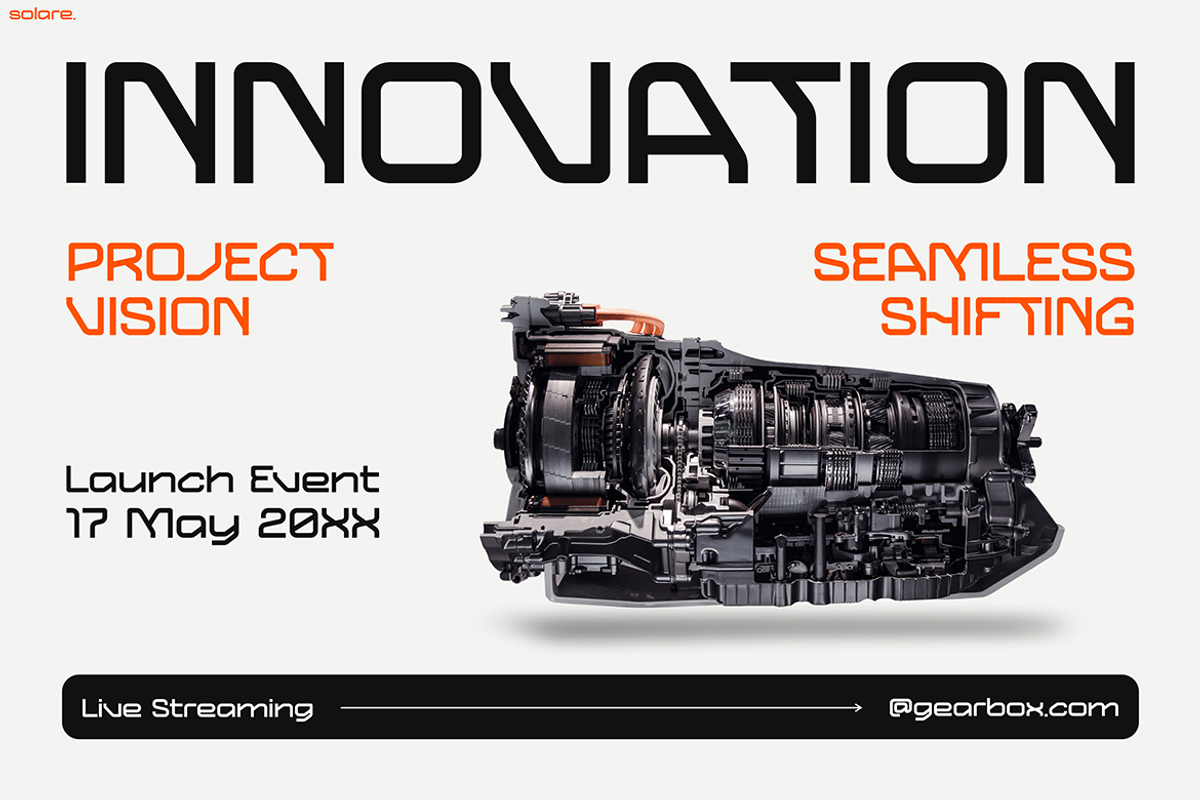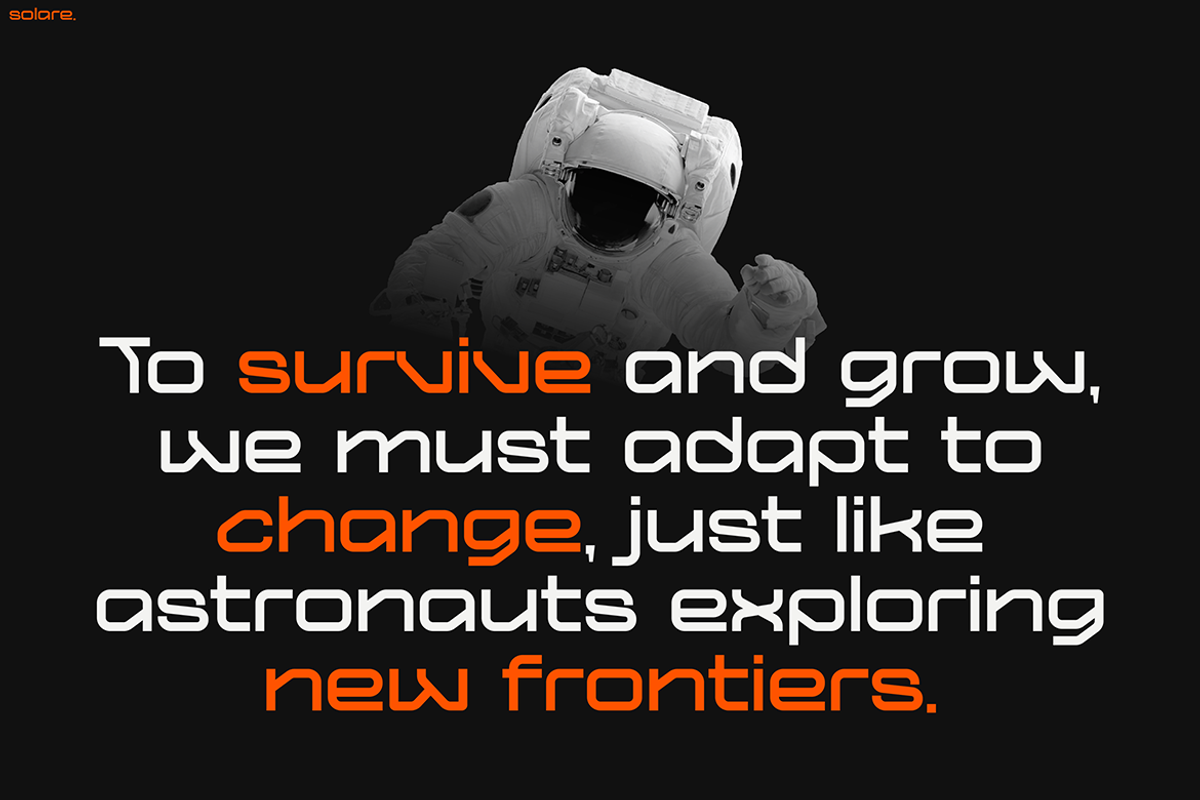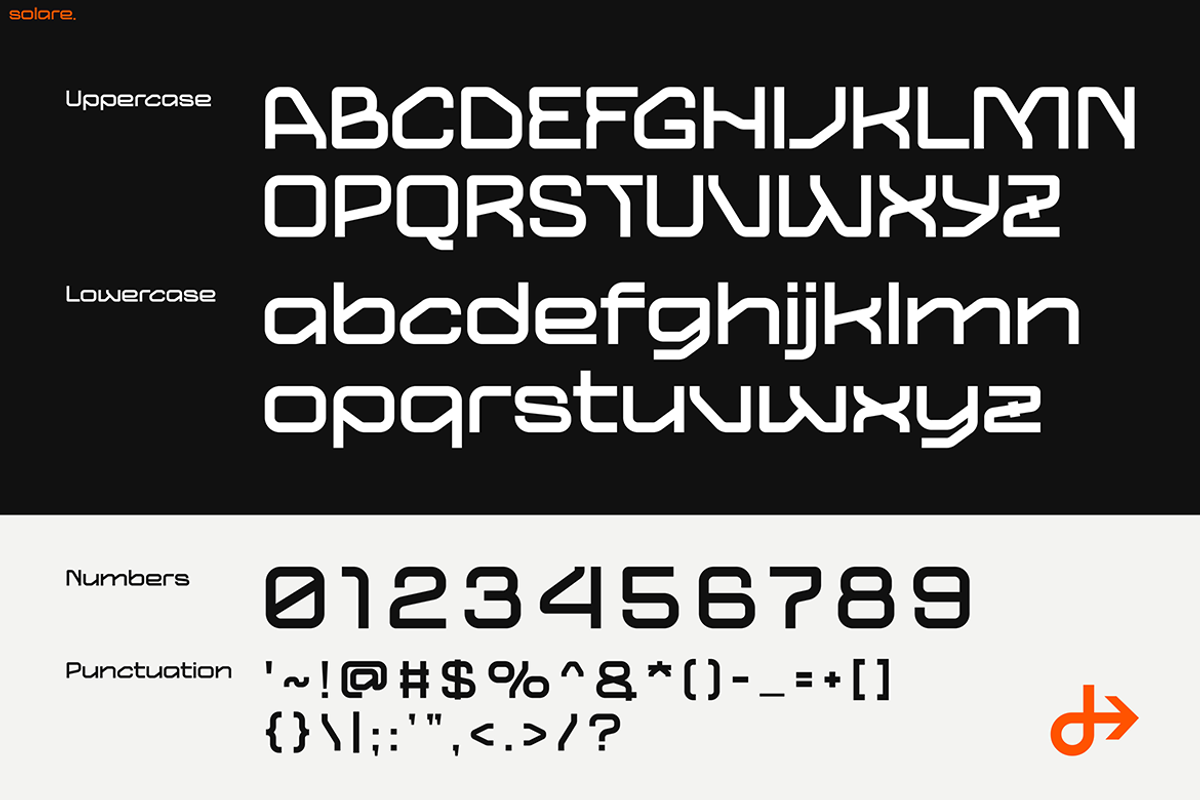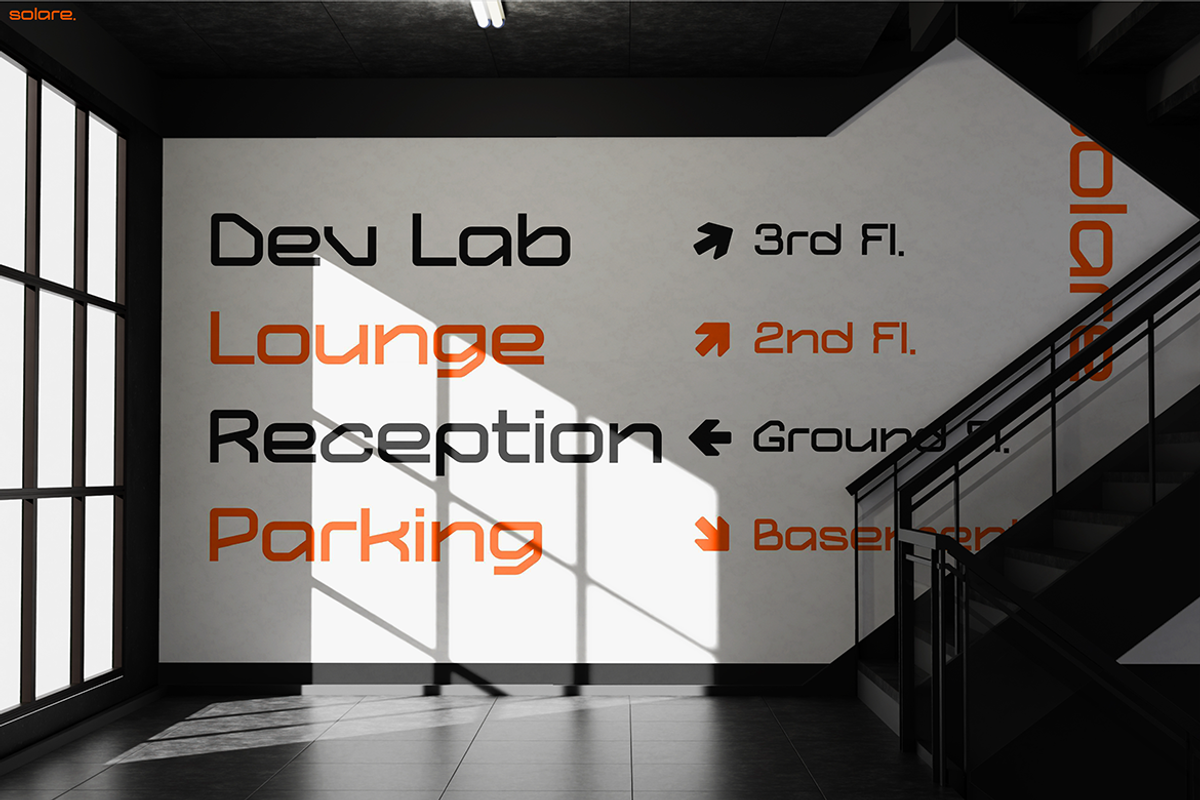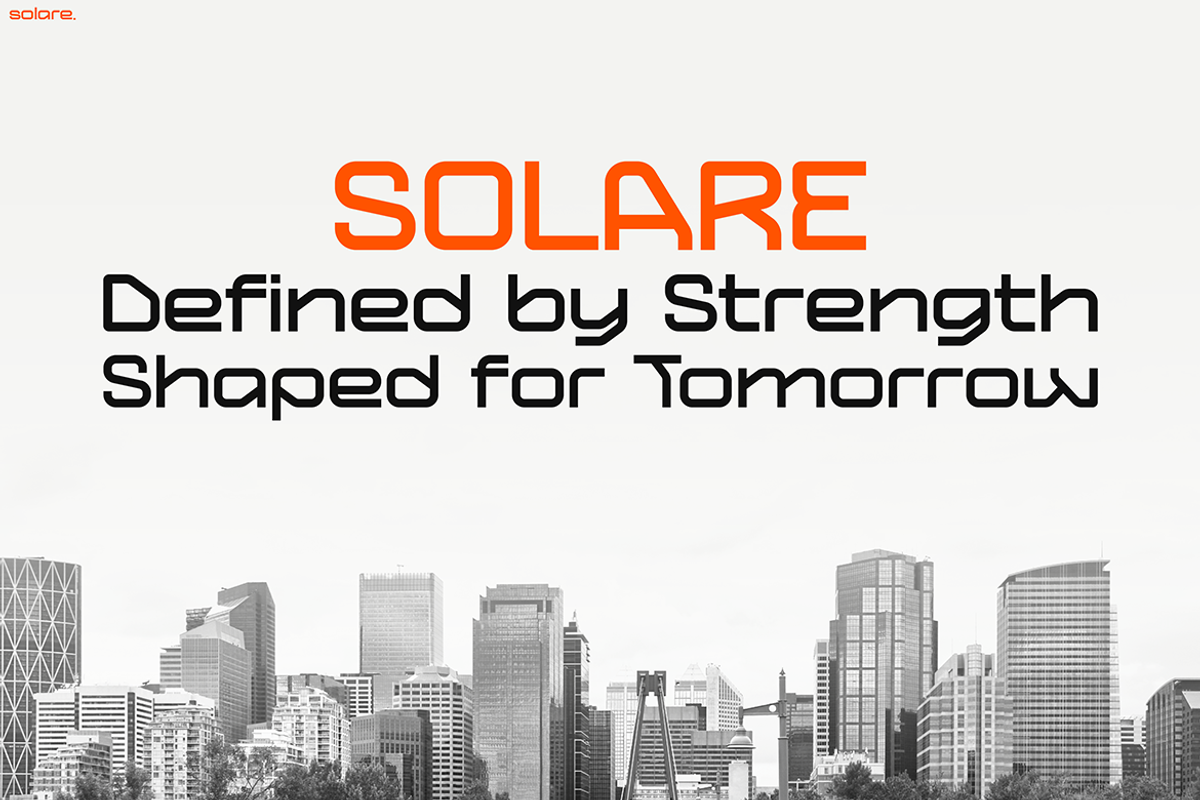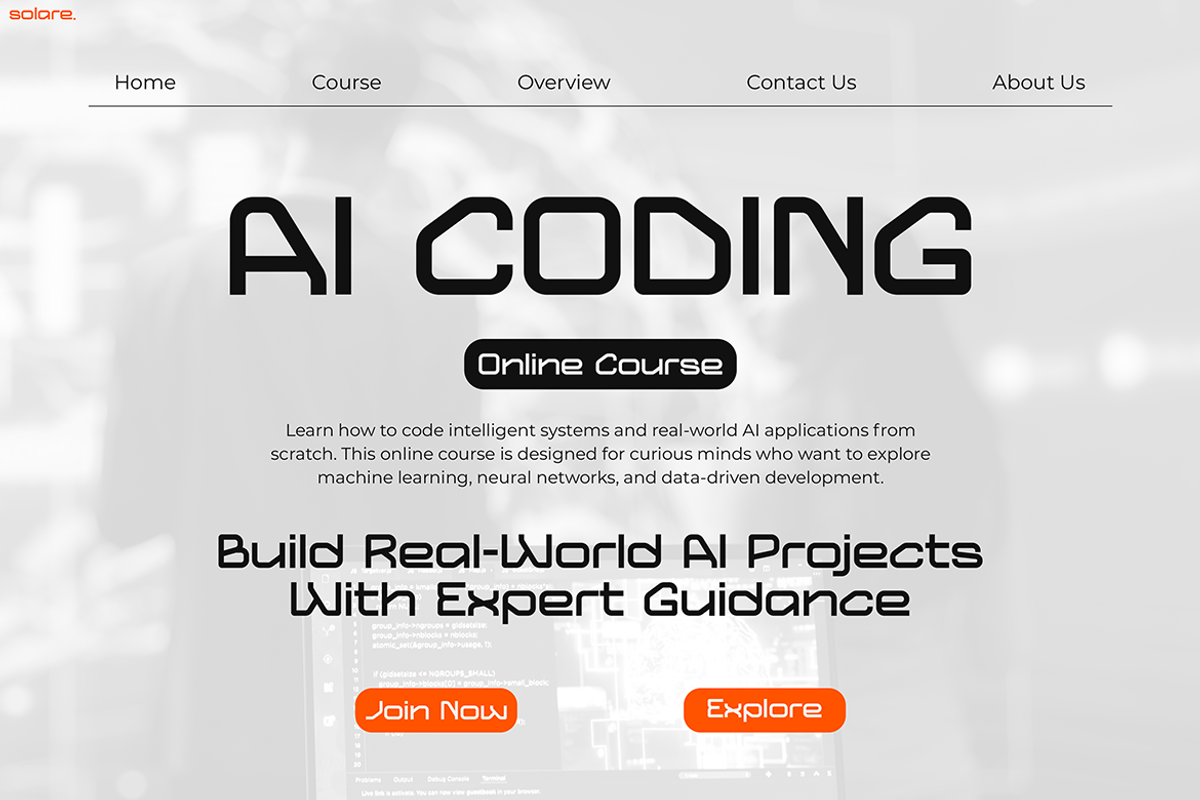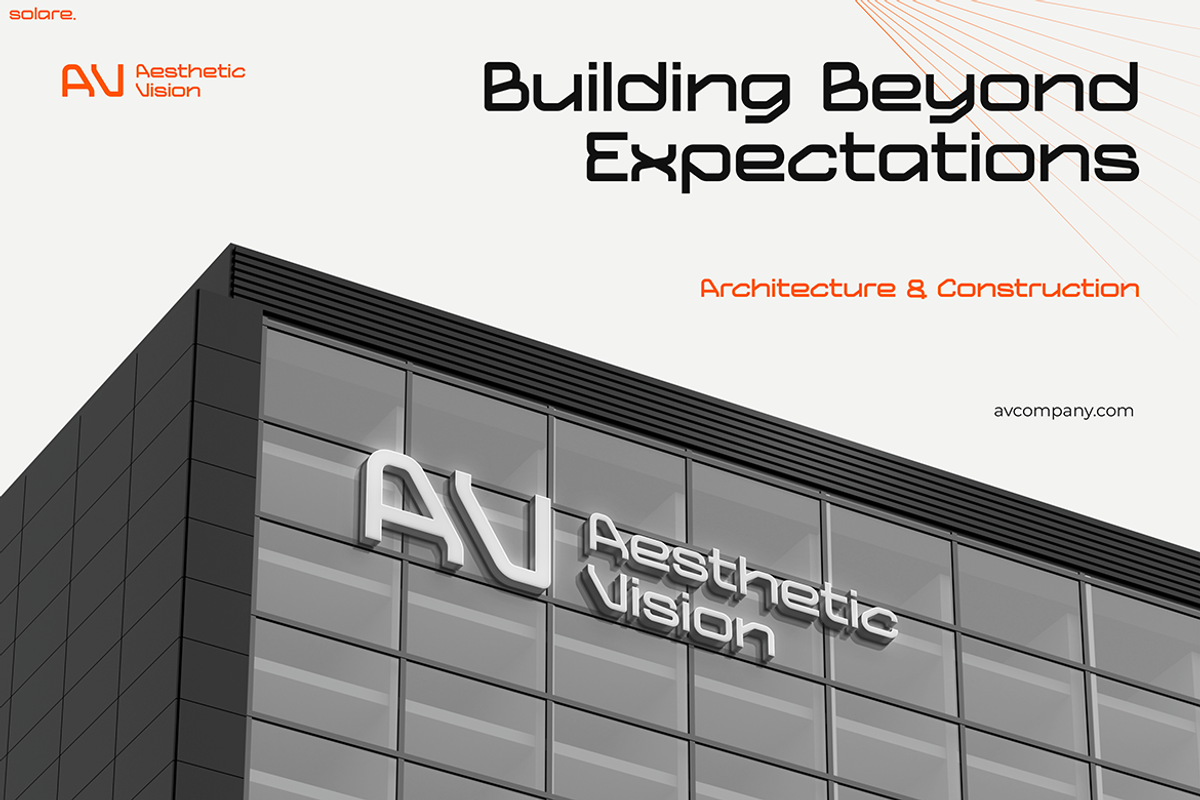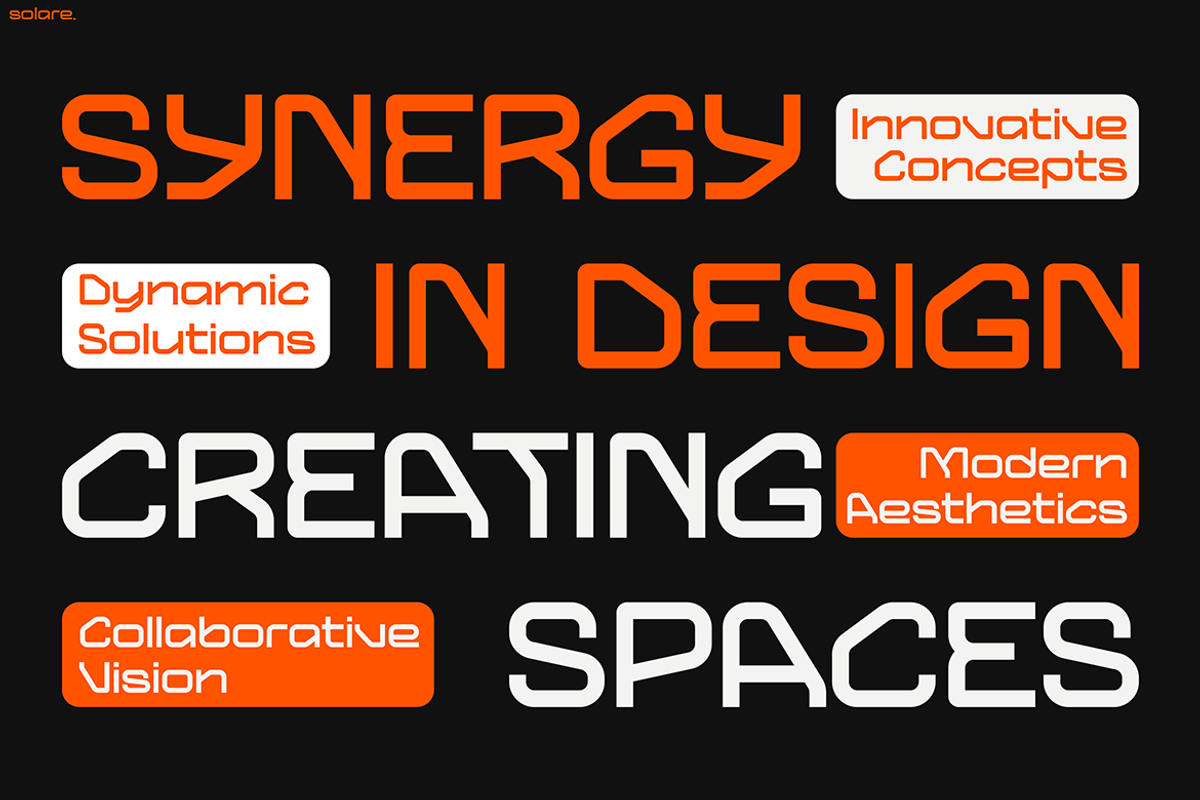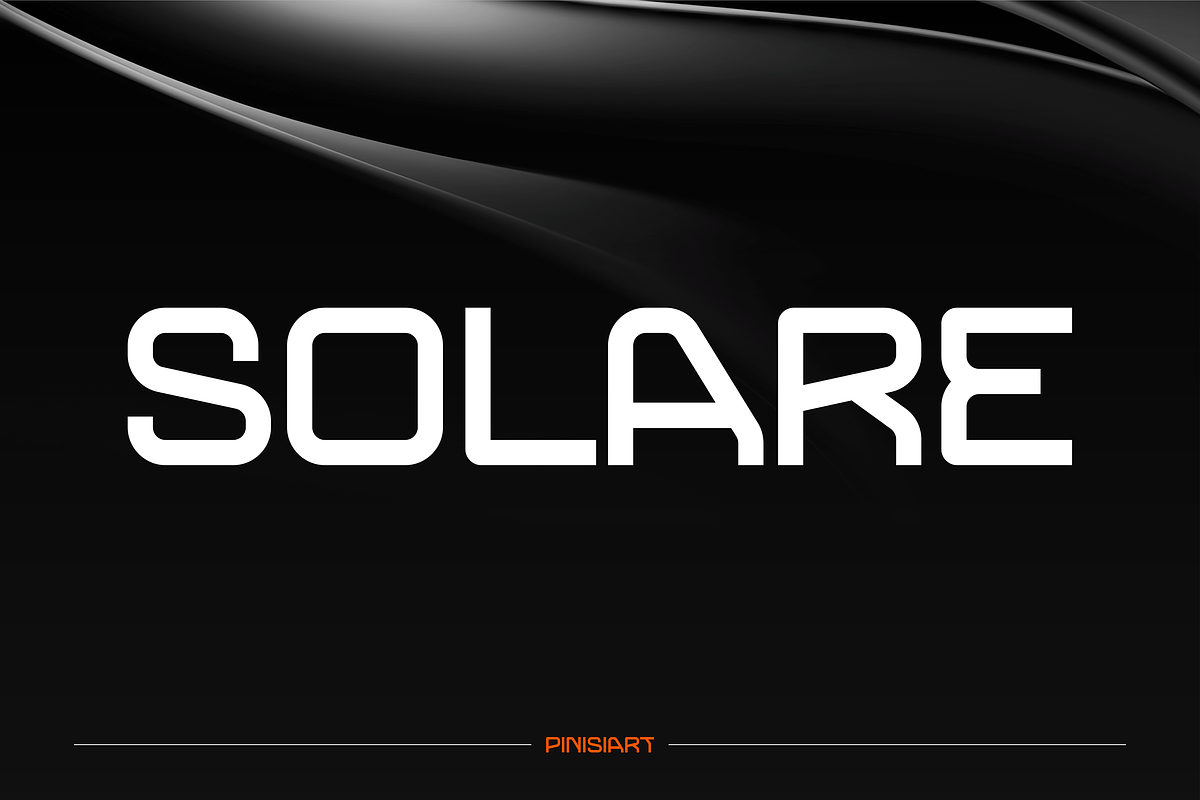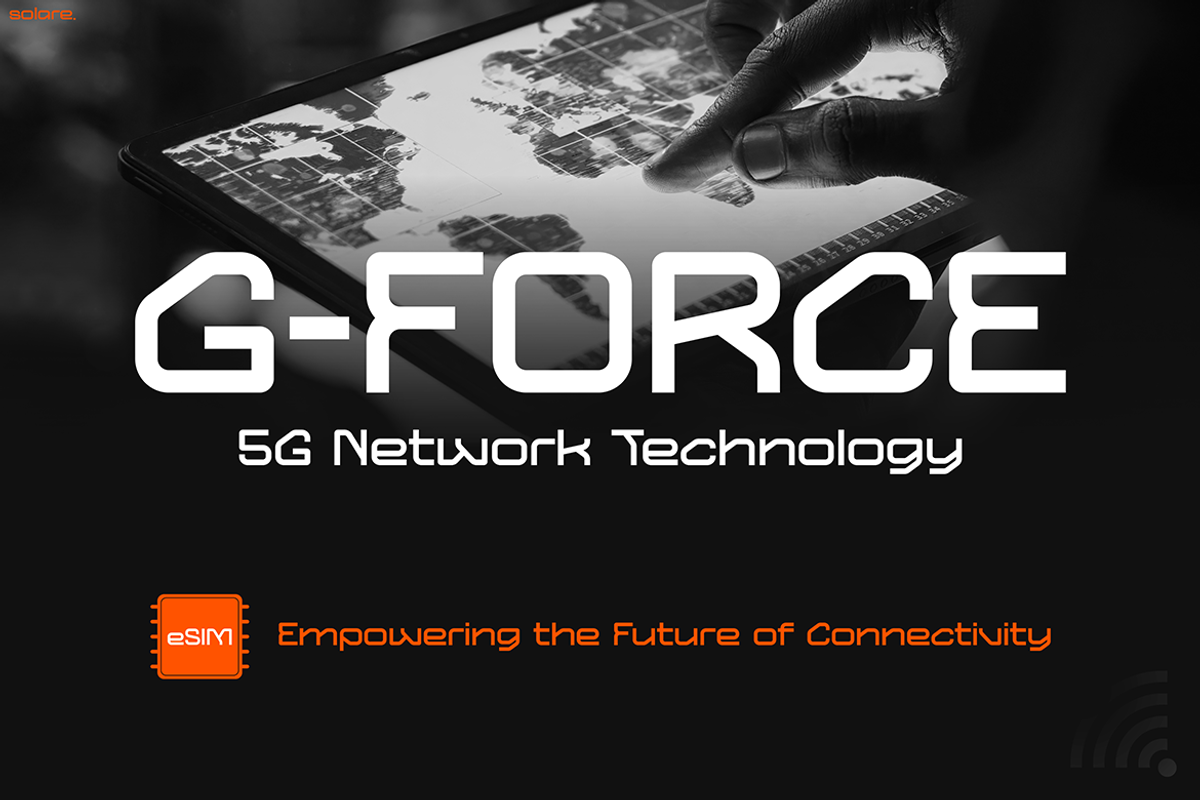
Solare
Futuristic Font Solare – Bold Aesthetic for Modern Innovation Futuristic Font Solare brings strength, clarity, and forward-thinking design into every project. With clean lines, geometric balance, and a futuristic edge, this typeface commands attention while staying highly readable. Moreover, its sleek aesthetic adds power to technology presentations, architectural branding, and innovation-driven campaigns. Sharp angles combine with smooth curves to create a distinctive look that feels professional and visionary. Therefore, Solare doesn’t just decorate your words—it amplifies them with purpose.
Why Choose Solare for Your Designs Solare reflects tomorrow’s spirit with a design that blends innovation and versatility. In addition, the futuristic appearance allows creators to deliver bold ideas with style and precision. You can apply it to large-scale displays, digital interfaces, corporate presentations, and branding identities that demand modern sophistication. Furthermore, with uppercase and lowercase sets, numbers, and complete symbols, Solare adapts easily to different creative needs. Whether you showcase futuristic technology, highlight architectural precision, or launch bold campaigns, Solare empowers your message with aesthetic strength.